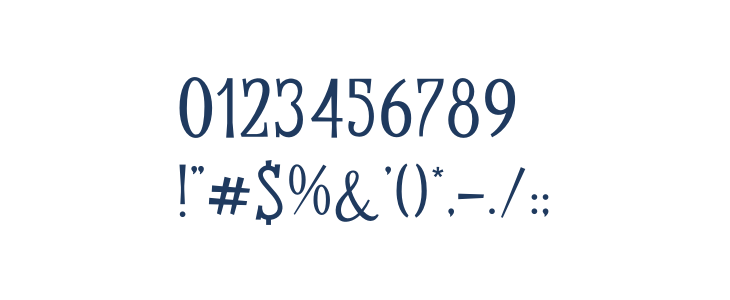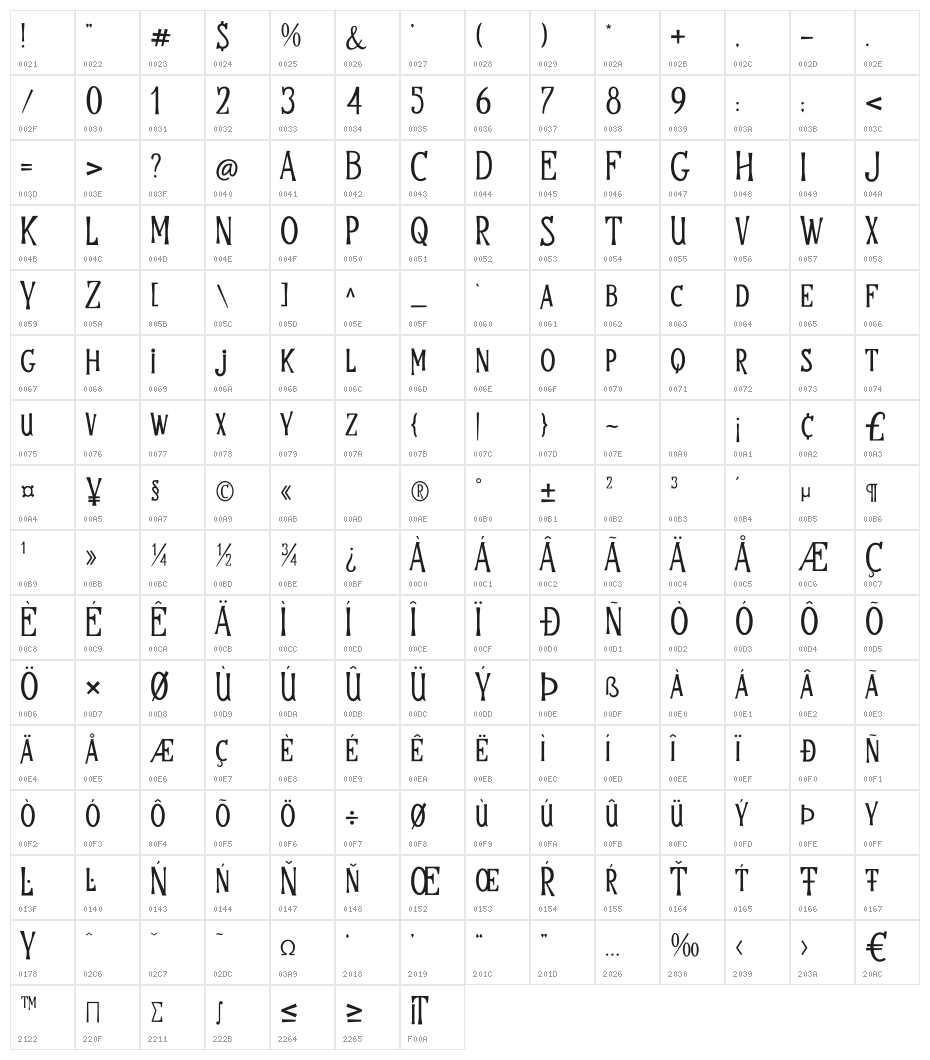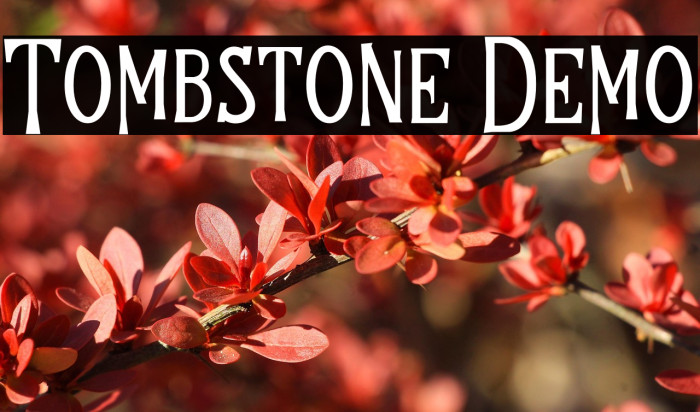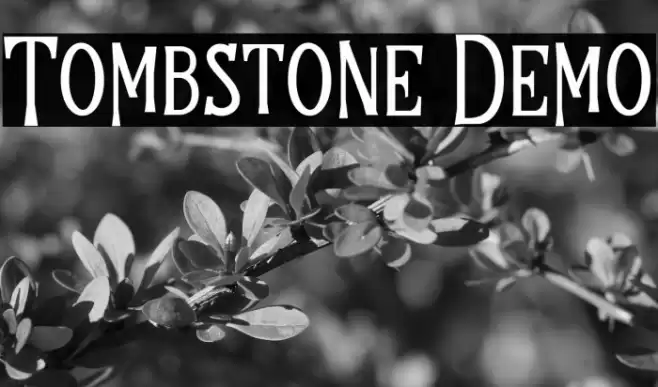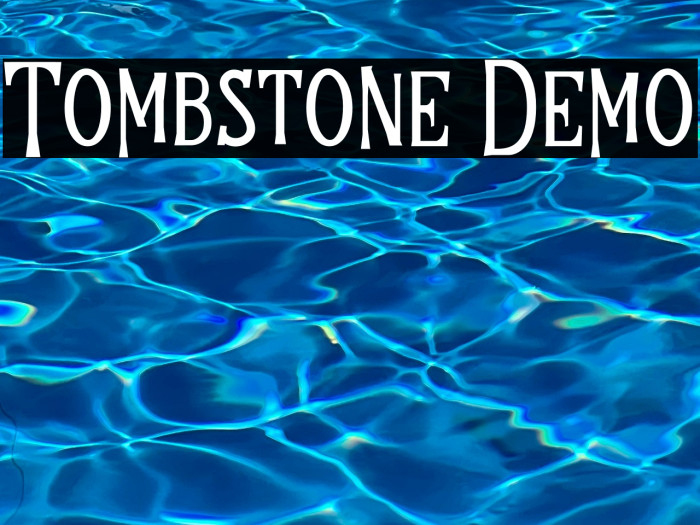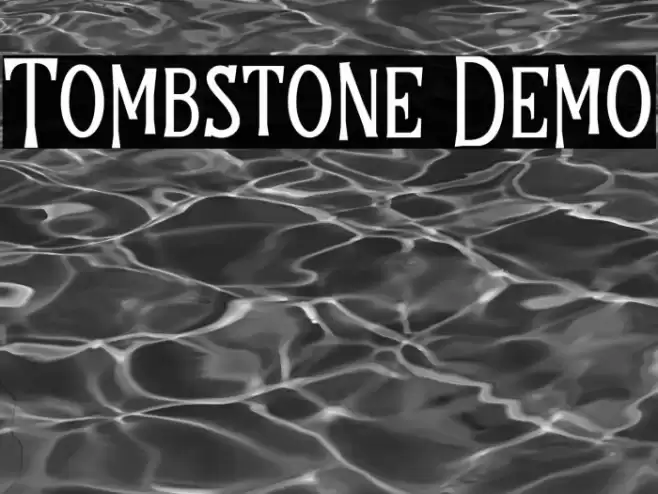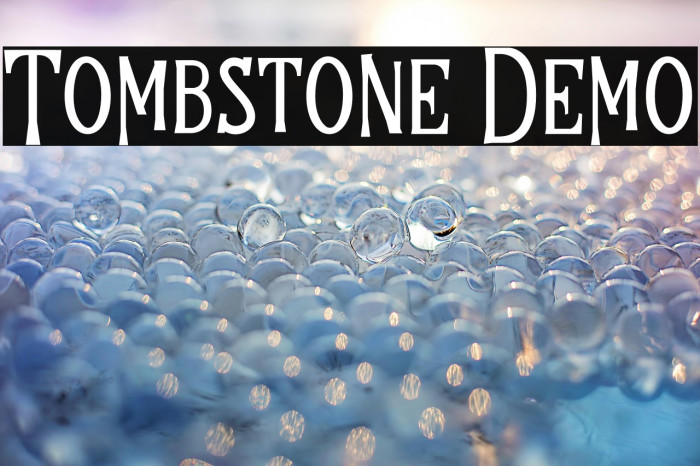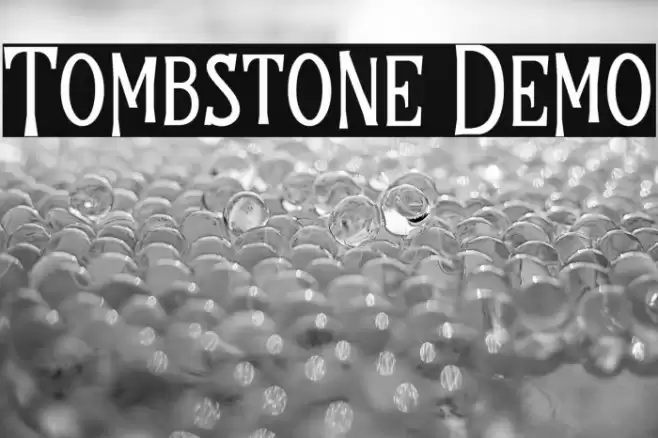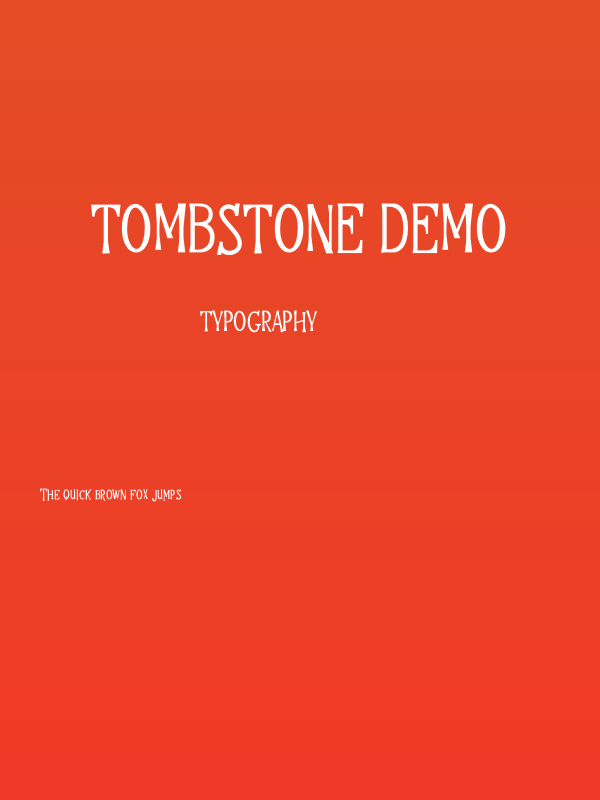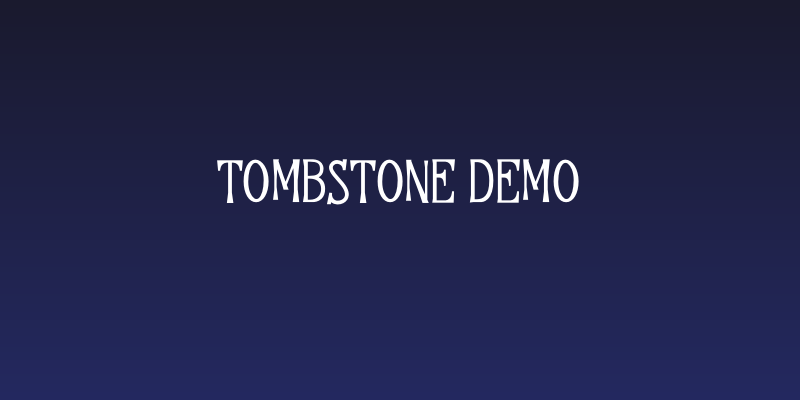
Tombstone Demo Font
Tombstone Demo Description
This font features a distinctive, bold style with a slightly vintage flair. The characters are tall and narrow, with sharp, angular serifs that give it a unique, eye-catching appearance. The uppercase letters are particularly striking, with a strong presence that commands attention. The lowercase letters maintain the same narrow structure, providing a cohesive look across the alphabet. Numbers and special characters are designed with the same boldness and angularity, ensuring consistency throughout. This font is perfect for projects that require a dramatic and impactful typeface.
| Proposed Projects | Ideal for posters, book covers, and branding that require a dramatic and vintage touch. |